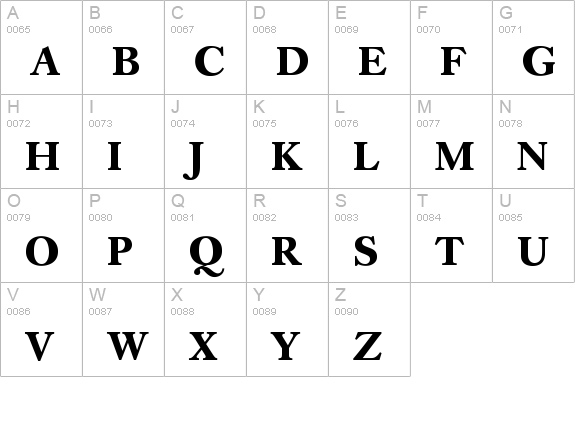
Caslon Buch fett m. Med.ziff. font is a bold and distinctive typeface that exudes elegance and sophistication. With its strong presence and unique character, this font is perfect for creating eye-catching headlines, titles, and logos. The sturdy serifs and bold weight of Caslon Buch give it a timeless and classic appeal that makes it stand out in any design project. What makes Caslon Buch even more appealing is that it is available for free download at FontsMarket.com. This means that you can easily access and use this beautiful font in your personal and commercial projects without any cost. Whether you're designing a poster, website, or branding materials, Caslon Buch is a versatile font that will elevate your design and captivate your audience. Download Caslon Buch fett m. Med.ziff. font today and add a touch of sophistication to your designs.